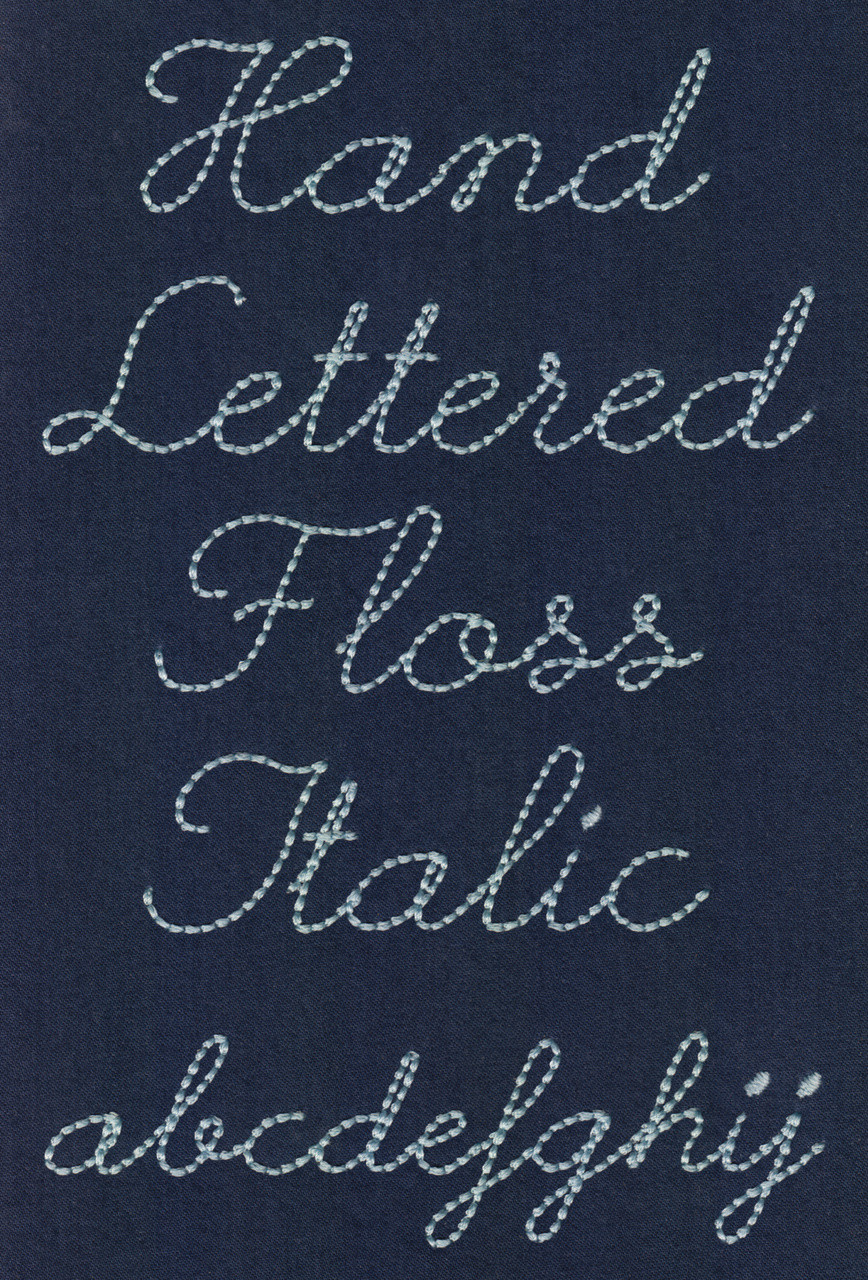
707 Hand Lettered Floss Stitch - Italic Font
707 Hand Lettered Floss Stitch - Italic Font comes in .5", .75", 1", 1.25", 1.5" , 2", 2.5" , 3", 3.5" and 4" sizes. Set size for this font is based on the height of the capital 'A' and all other characters are proportionally sized. All sizes are included in purchase price. Also included in the purchase price is a set of matching scrolls and accents to add a decorative touch to your lettering projects. All characters, scrolls and accent pieces are finished in Floss Stitch which stitches out on all embroidery machines. Stitching is left to right. Most lowercase letters have left/right matching points. Lower case letters c d g o q u and y start higher up but end at the left matching point creating one jump stitch; i j and t are two part and will create two jump stitches. The word "lettered" in the stitch sample show above has 5 jump stitches but even after trimming the word appears to be stitched in one line. Just use your embroidery layout software to line up the letters...or use Embilliance Software with the BX format to type in your lettering project....then adjust the spacing between the letters so they are touching and make sure to arrange the stitch order from left to right as well to minimize jump stitches. Most characters in the 4" set exceed the hoop limitations of the standard 3.96" x 3.96" PES hoop. *DO NOT RESIZE designs with decorative running stitches like Floss Stitch as stitch pattern and stitch quality will be lost.